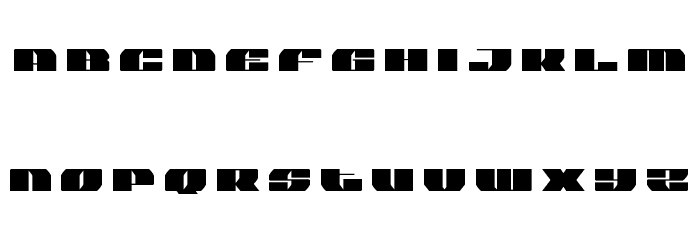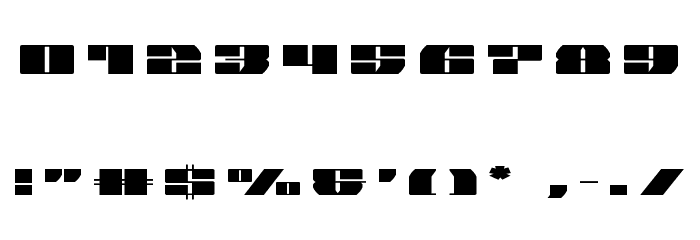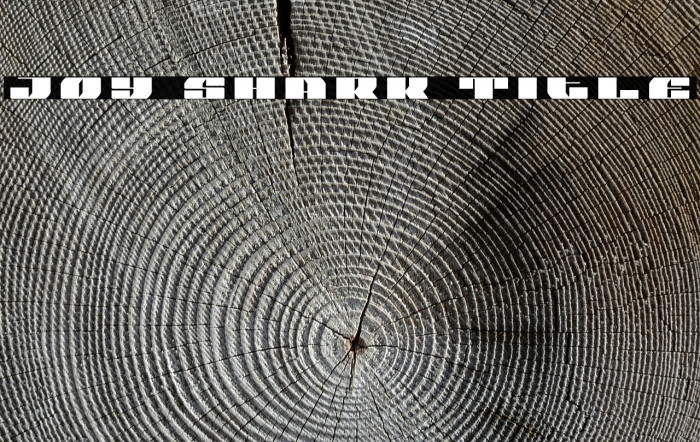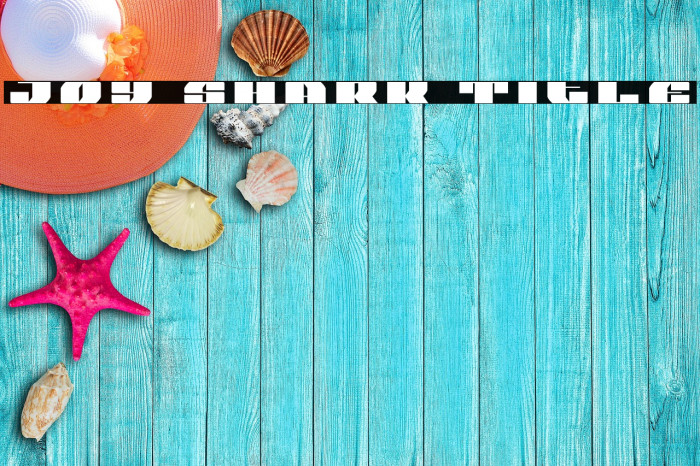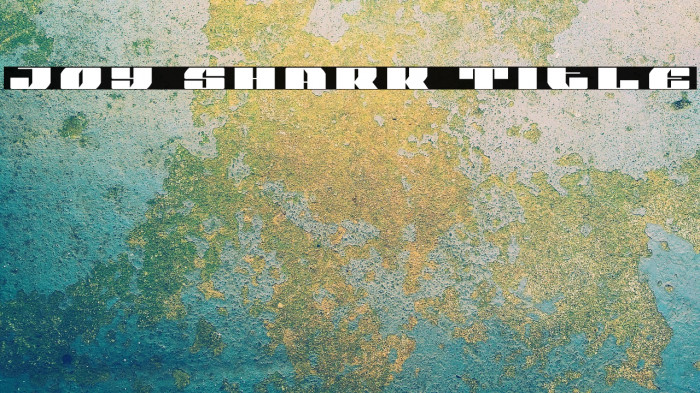
Joy Shark Title Font
This font features a bold, geometric design with a strong, industrial feel. The characters are constructed with thick, block-like shapes, giving them a robust and impactful appearance. The angular cuts and sharp edges add a modern, edgy touch, making it stand out in any design. The uppercase and lowercase letters maintain a consistent style, while the numbers and special characters complement the overall aesthetic. This font is ideal for projects that require a bold statement, such as posters, headlines, and branding materials.
A bold, geometric font with an industrial and modern aesthetic.
- Proposed Projects: Ideal for posters, headlines, branding, and any design needing a strong visual impact.